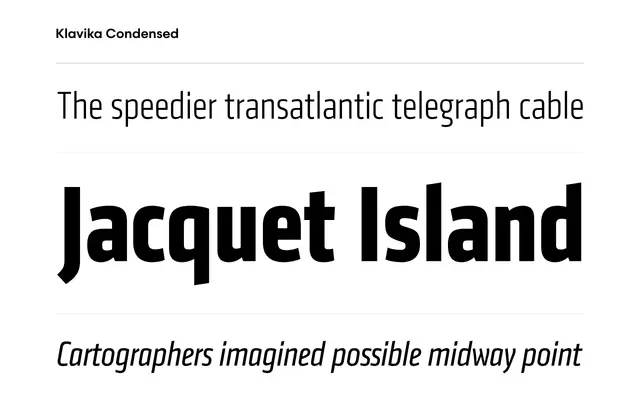
Klavika Condensed
Process Type Foundry · Eric Olson · 2008
A narrow companion to Klavika by Eric Olson, preserving the original's geometric character and range of four weights in a condensed width.
Released in 2008, this condensed variant of Eric Olson's Klavika retains the near-vertical terminations, straight sides and dynamic italics of the original family across four weights from Light to Bold. Eight styles in total cover both text and display applications, with OpenType features including tabular numerals, stylistic alternates for the g and ampersand, and arrows in the roman cuts. A direct workhorse option where column widths are tight but the geometry of Klavika still needs to read clearly.
Klavika Condensed is a geometric sans with near-vertical terminations and straight sides, making it a condensed extension of the Klavika family rather than a humanist or grotesque design.